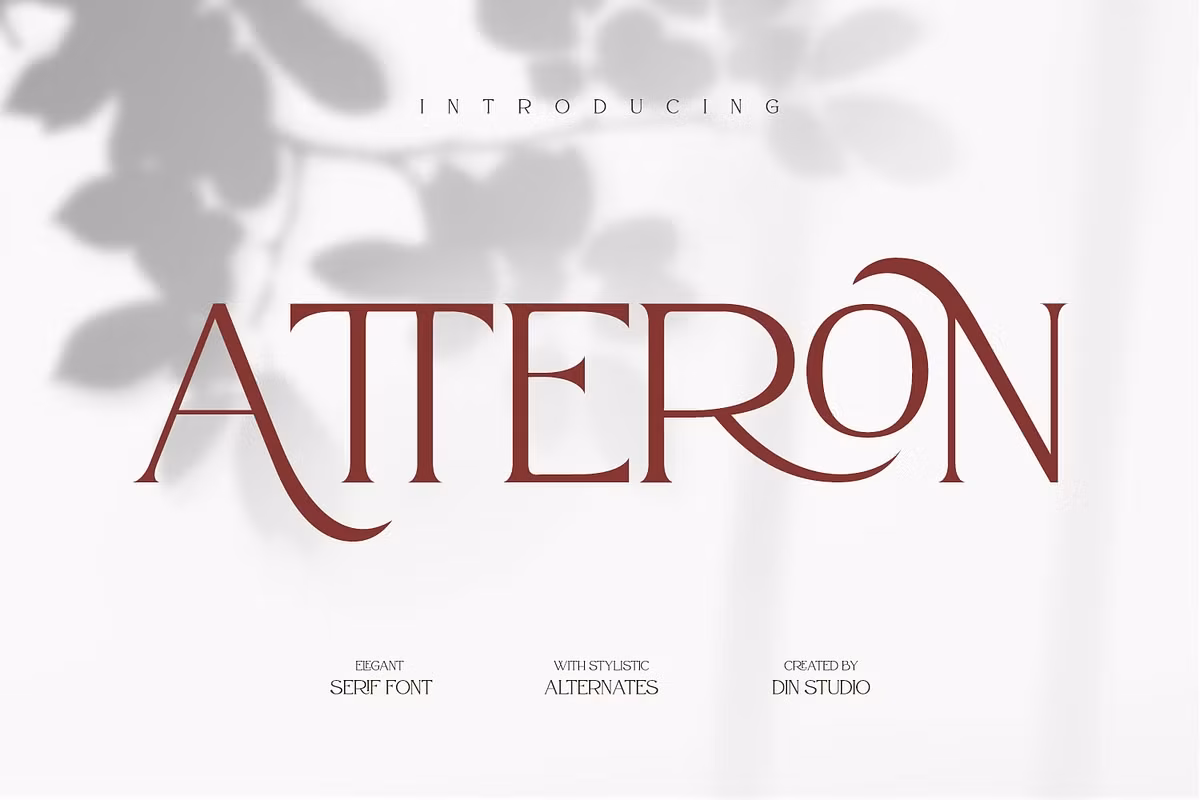
Atteron – Elegant Serif Font Free Download is a refined and luxurious typeface that combines classic serif beauty with a modern, sophisticated twist. Please note: you must purchase this font for commercial use, but you can test it through a free download. With high-contrast strokes, graceful curves, and timeless charm, Atteron is perfect for branding, wedding invitations, editorial design, fashion packaging, and upscale social media content.
This font brings a sense of elegance and confidence to any layout, making it a favorite for designers seeking to create polished and high-end visuals. Whether you're crafting a premium logo or an elegant headline, Atteron – Elegant Serif Font Free Download offers both style and readability. Fully compatible with Adobe Illustrator, Photoshop, Canva, and more, it integrates seamlessly into your workflow. Download it today for personal use and elevate your typography with the classic sophistication of Atteron.